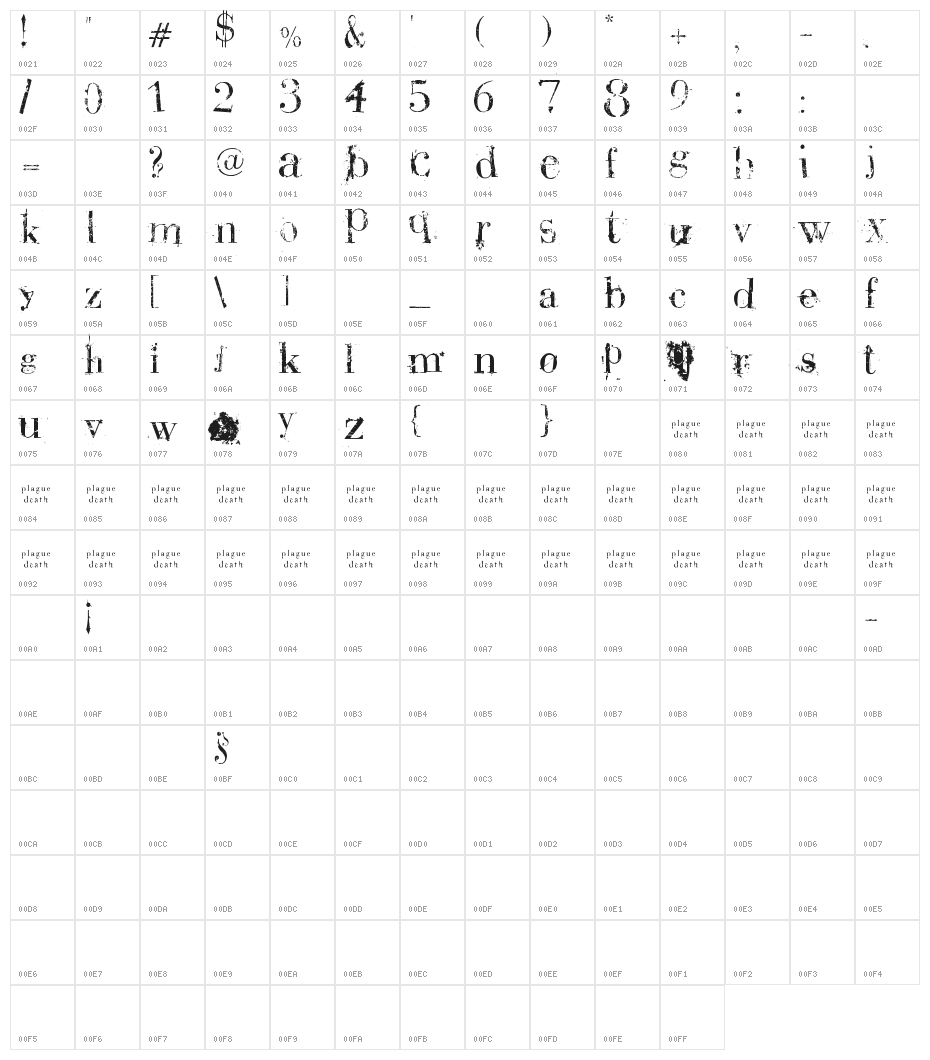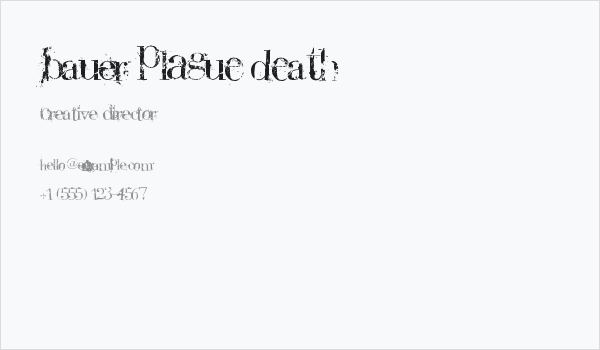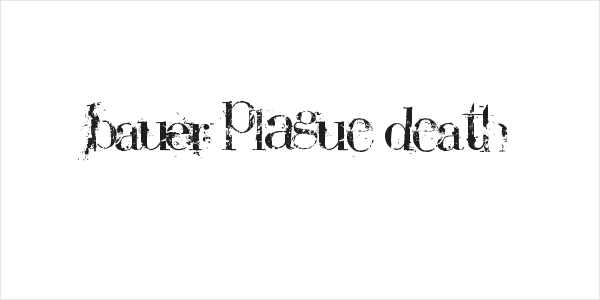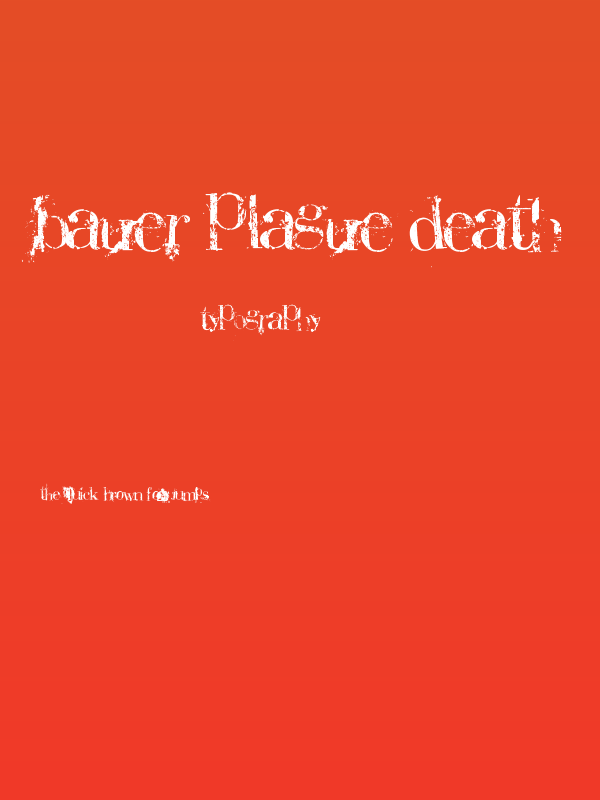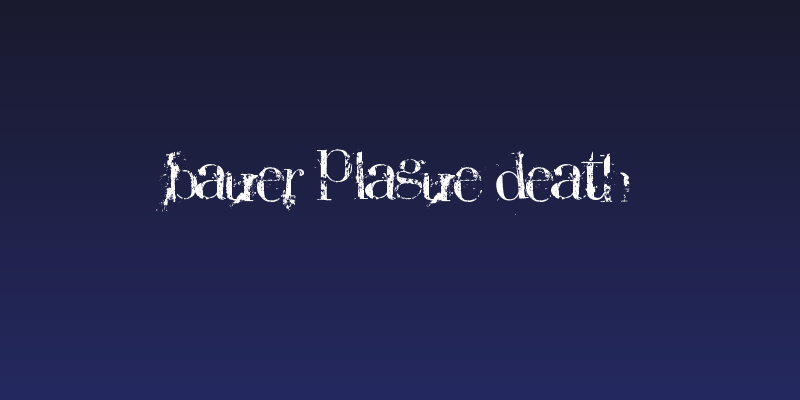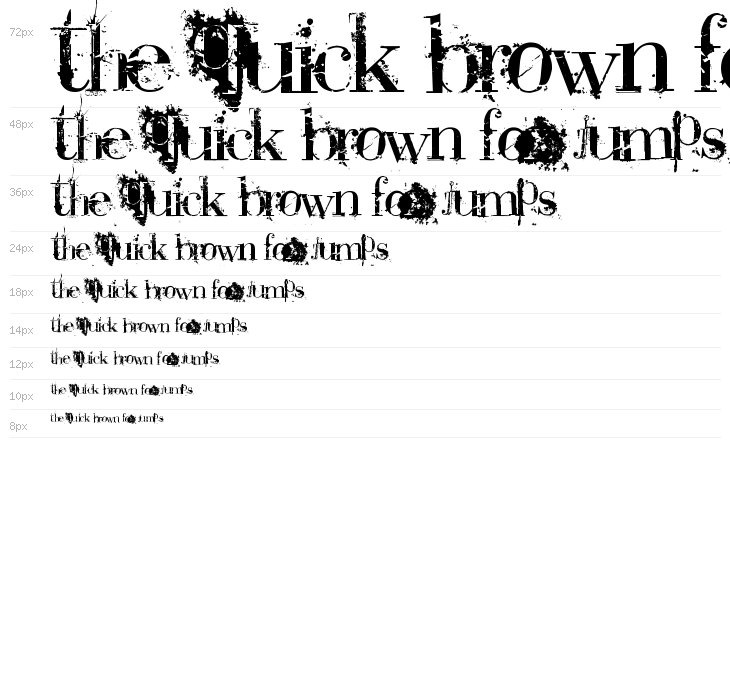
Bauer PlAGuE dEaTH Font
Bauer PlAGuE dEaTH Description
This font features a distressed and grunge aesthetic, characterized by its eroded and weathered appearance. The letters appear as if they have been worn down over time, with irregular edges and a textured look that gives a sense of decay or destruction. The uppercase and lowercase letters maintain a consistent style, with the same distressed elements applied throughout. Numbers and special characters also follow this theme, adding to the overall cohesive appearance. This font is ideal for projects that require a raw, edgy, or vintage feel, making it suitable for designs that aim to convey a sense of history or ruggedness.
| Overall Style | Grunge, Vintage |
| Use Case | Headlines, Posters, Branding |
| Proposed Projects | Album covers, horror movie posters, vintage-themed designs, and edgy branding materials. |